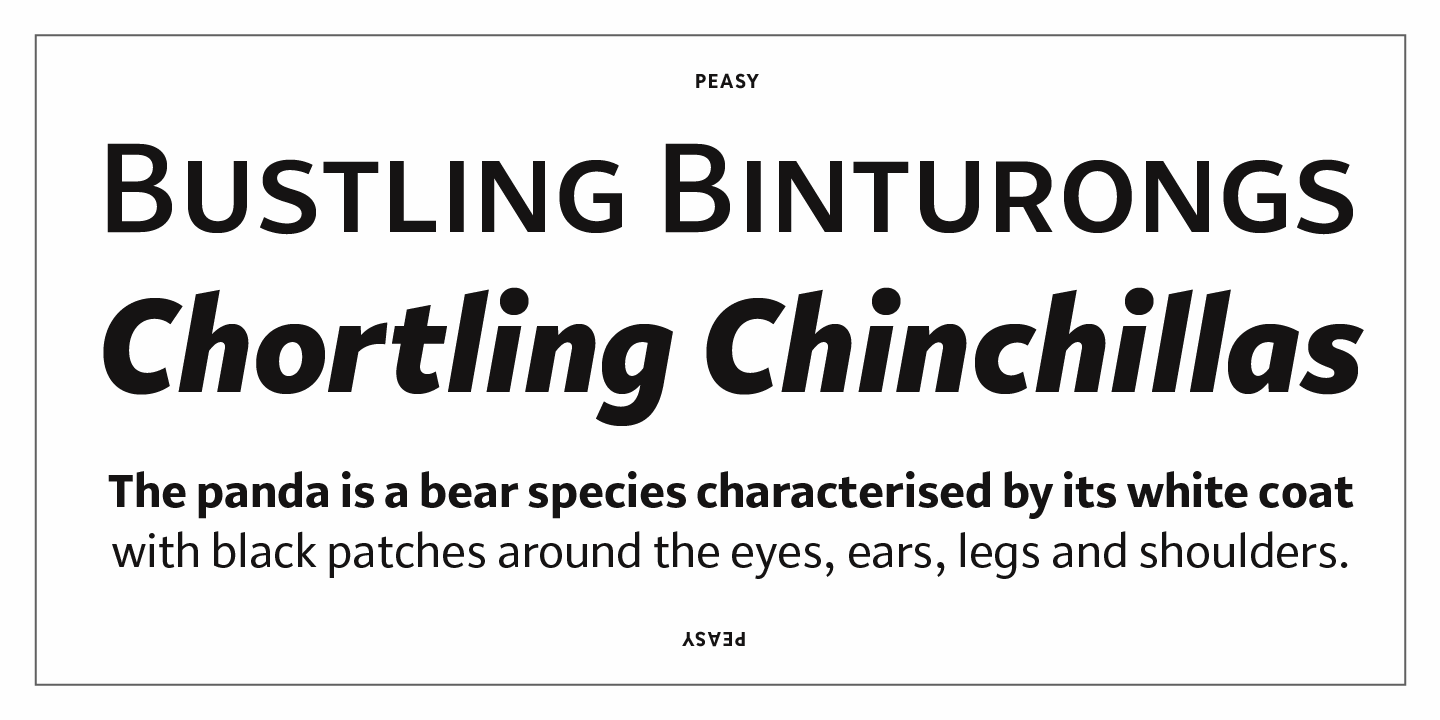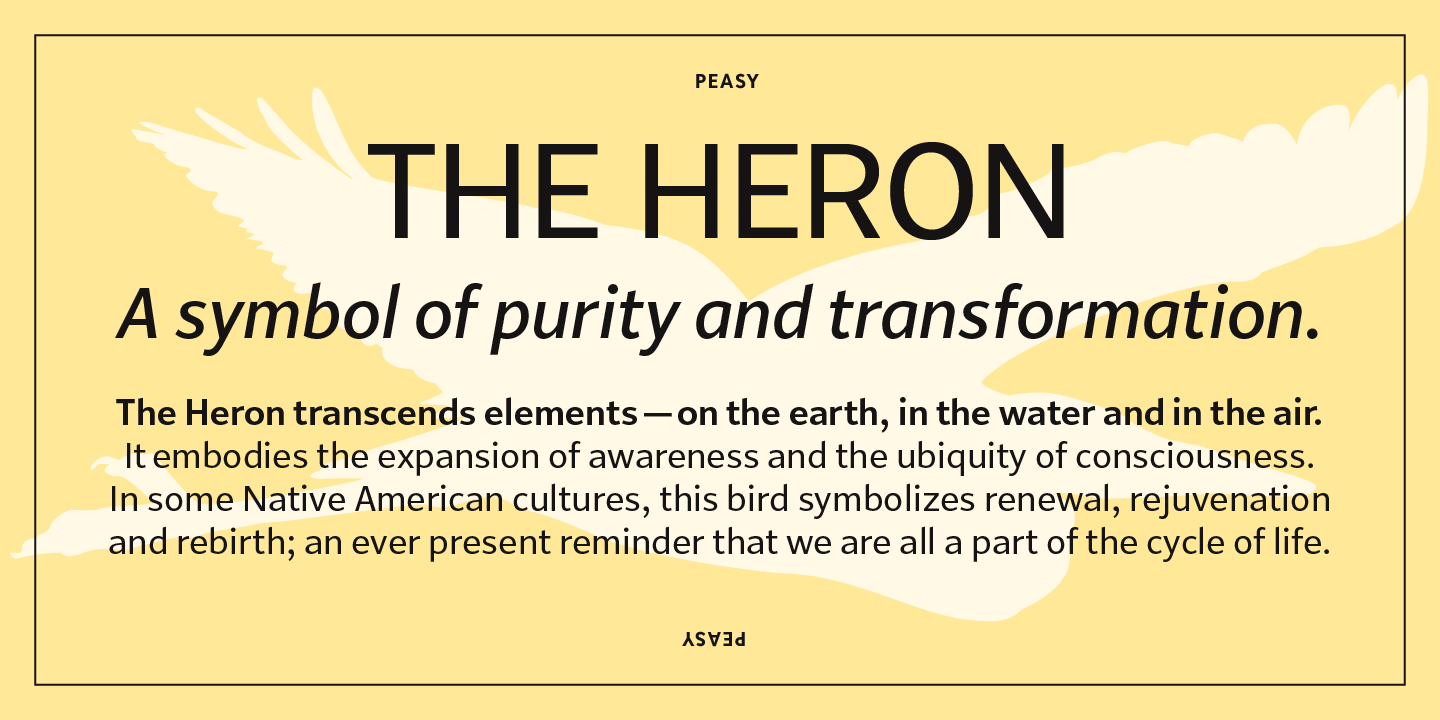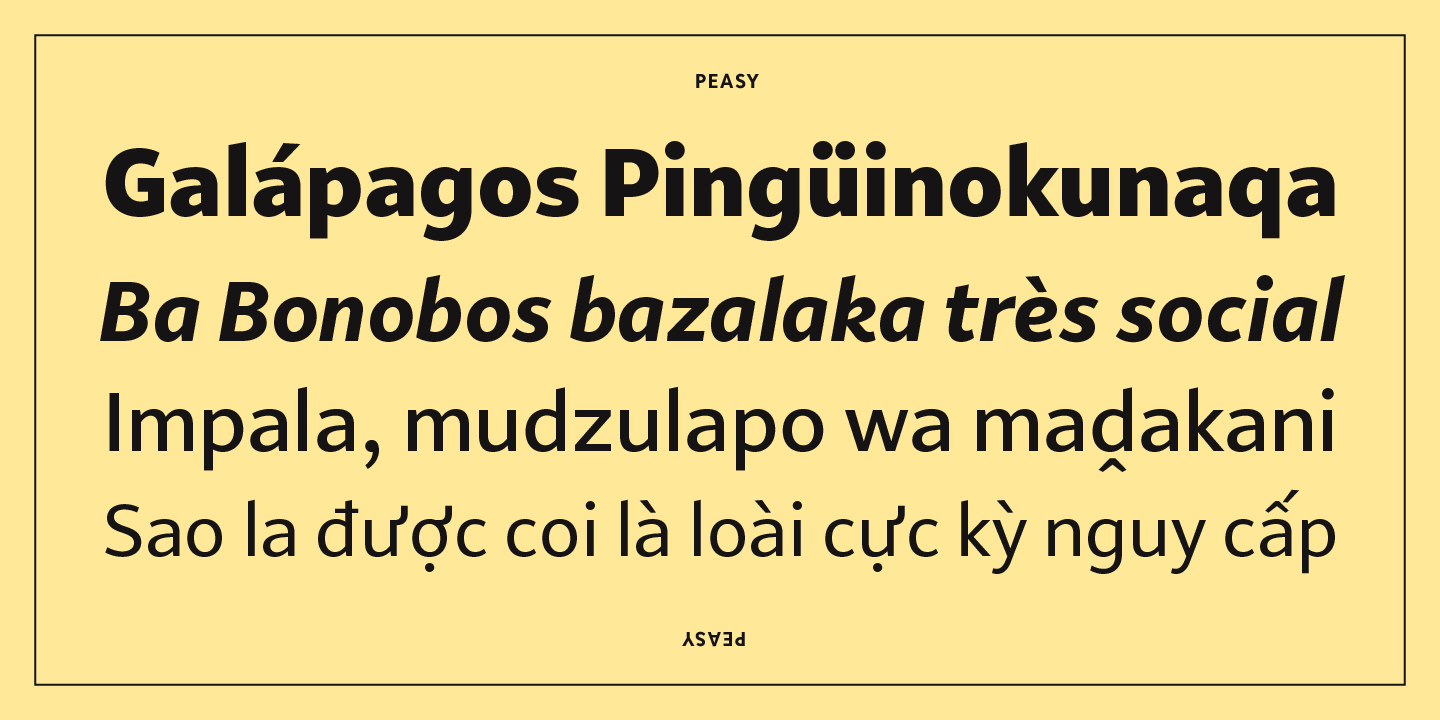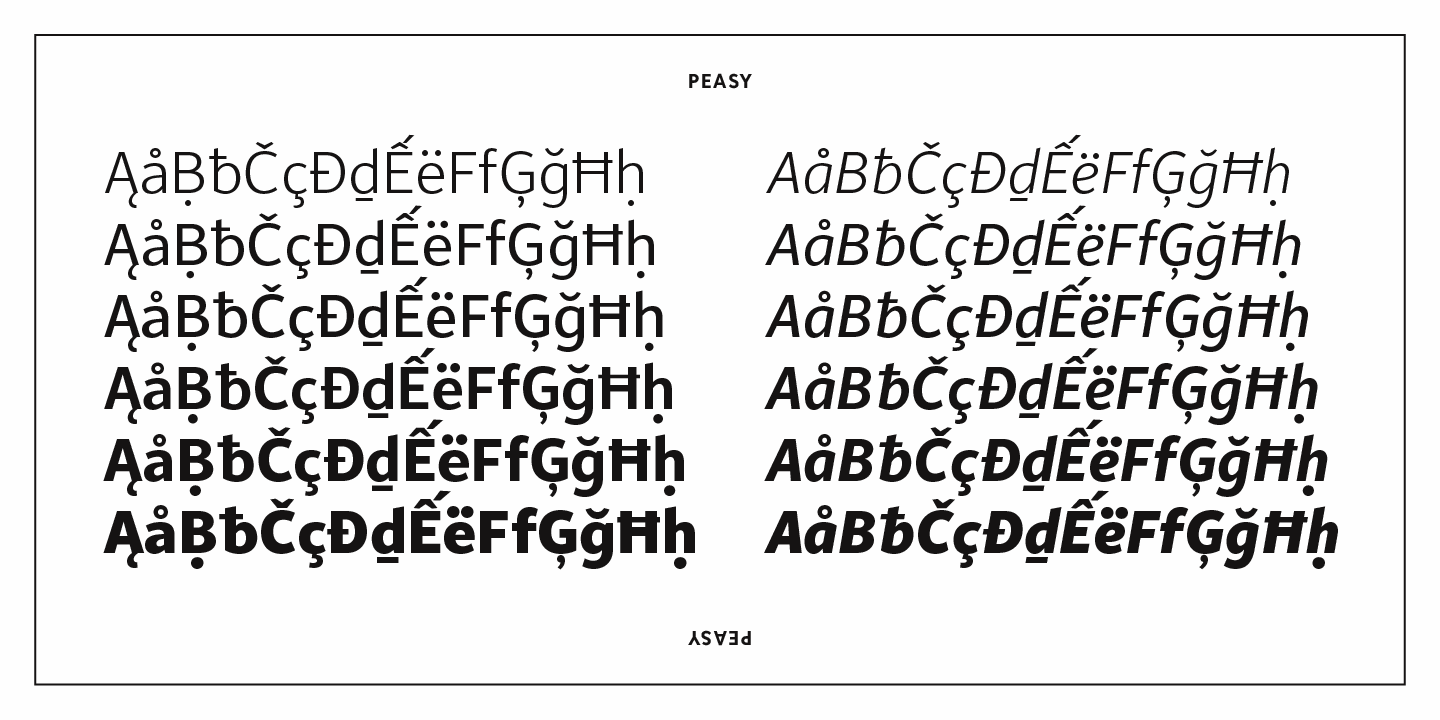
Peasy
Font Family by Delve Fonts
Peasy is a friendly, neo-humanist sans serif typeface, designed for extended reading and medium-sized display settings. It is well balanced, low-contrast, and has a neutral but refreshing personality with a gestural, soft quality. Peasy has open apertures and stroke endings paired with a comfortable x-height for the lowercase and works well both in print and on screen.
Peasy has broad language support, including Vietnamese and a panoply of African and Oceanic languages. Lively OpenType features in Peasy include: small caps, oldstyle and tabular numerals, a combination of traditional and schoolbook letterforms as thoughtful stylistic alternates, plus a set of handy arrows, symbols, and global currency symbols.
Having an even color with just enough flair (and flare) to make for a pleasant reading experience, Peasy fits a wide range of graphic design applications. It is an excellent choice for use in both print and online publications, signage, user interfaces, or other texts where readability is critical.